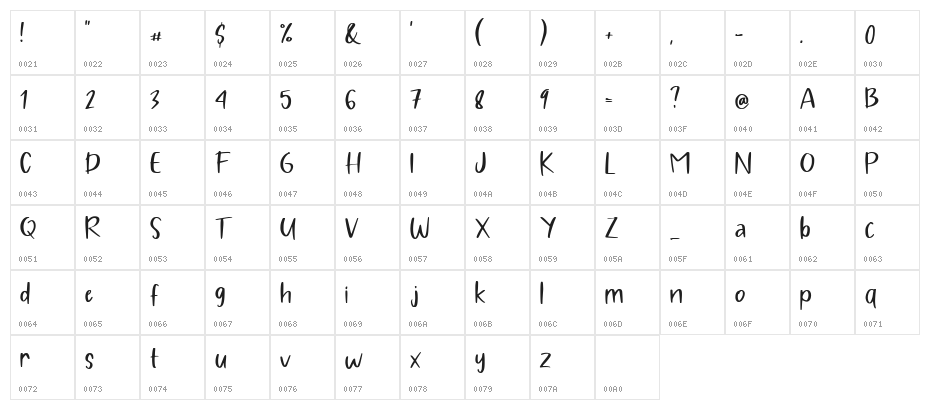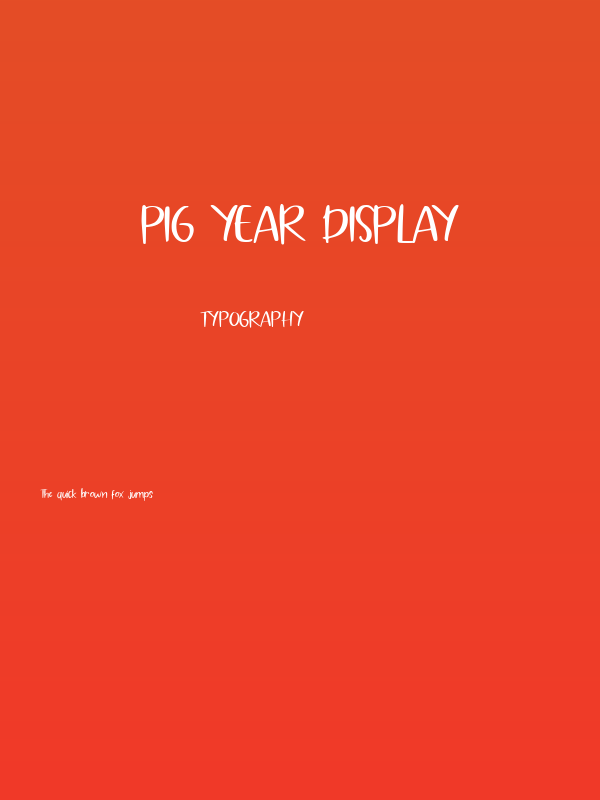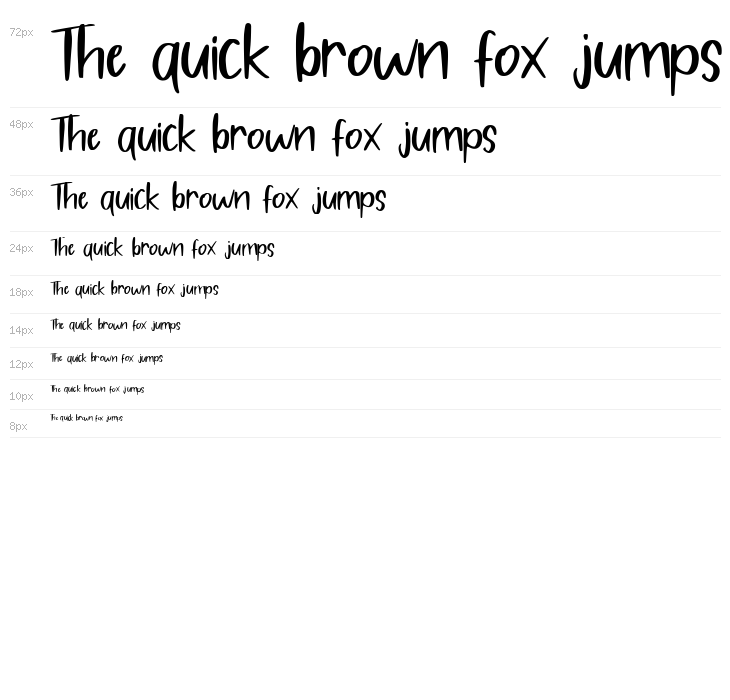
Pig Year Display Font
Pig Year Display Description
This font features a playful and casual handwritten style, characterized by its fluid and slightly irregular strokes. The uppercase letters are bold and dynamic, with a slight slant that adds to the informal feel. Lowercase letters maintain a consistent flow, enhancing readability while preserving the handwritten charm. Numbers and special characters are crafted with the same lively spirit, making them suitable for creative and informal applications. The overall appearance is friendly and approachable, perfect for projects that require a personal touch.
| Proposed Projects | Ideal for greeting cards, invitations, children's books, and playful branding. |